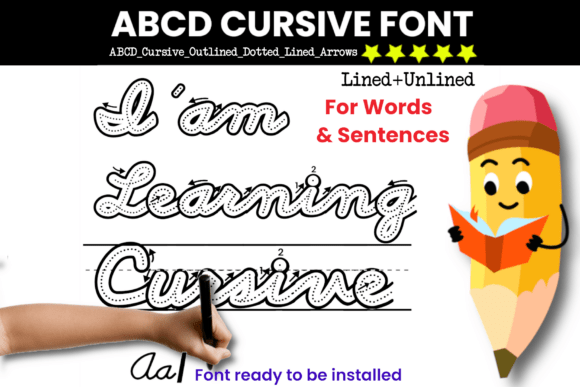
Cursive Learning: Abcd Cursive Outline Dotted Arrows Lined Font
In the realm of educational design, the bridge between playful engagement and structured learning is often built with typography. For graphic designers specializing in educational materials, the Abcd Cursive Outline Dotted Arrows Lined font is more than a typeface—it's a dynamic creative asset that transforms passive learning into an interactive experience. This unique, installable handwritten font, inspired by the renowned D'Nealian handwriting method, provides a professional solution for creating thousands of custom worksheets, blending visual appeal with pedagogical function.
Typography as a Teaching Tool: Visual Hierarchy and Clarity
Effective visual design in education hinges on clear communication. The Abcd Cursive Outline Dotted Arrows Lined font excels by embedding instructional guides directly into its letterforms. The dotted outlines provide a clear path for tracing, while the directional arrows teach proper stroke order and flow. This approach creates an intuitive visual hierarchy where the goal (the complete letter) and the method (the traced path) are seamlessly integrated. For designers, this means creating materials that are not only visually consistent but also inherently instructional, reducing cognitive load and enhancing user engagement.
When selecting such a font, consider its scalability and readability. A well-designed educational typeface maintains its clarity at various sizes, from small worksheet text to large poster displays. The consistency of the TRACE & COLOR ABCD Cursive Outlined Dotted Arrows Lined /+Half lined font style ensures that whether it's used on a digital screen or a printed page, the core teaching elements remain perfectly legible and functional.
Practical Applications Across Creative Projects
The utility of this specialized font extends far beyond traditional classroom worksheets. Its unique characteristics make it a valuable asset in a variety of design contexts where education, interaction, or a handcrafted aesthetic is desired.
- Brand Identity & Logo Design: For educational apps, tutoring services, or children's brands, this font can inform a logo or wordmark that communicates approachability and learning-focused values. It establishes a visual identity that is both professional and deeply connected to its mission.
- Digital Marketing & Social Media Graphics: Create engaging Instagram stories, Facebook posts, or Pinterest pins promoting educational content. The interactive look of the letters can increase user engagement, encouraging followers to try tracing letters themselves.
- Packaging & Merchandise Design: Design product packaging for children's books, stationery sets, or learning kits. The font's style immediately signals the product's purpose, creating a cohesive unboxing experience that aligns with the brand's educational promise.
- Editorial & Web Design: Use it as a display font in magazines, blogs, or websites focused on parenting, homeschooling, or childhood development. It adds a touch of personalized, instructional charm to headers and pull quotes, enhancing the overall user experience (UX).
Integrating Specialized Assets into Your Design Workflow
Incorporating a font like Abcd Cursive Outline Dotted Arrows Lined into your projects requires thoughtful execution to maintain a polished and professional presentation. The key is to balance its distinctive style with complementary design elements.
- Pair with Simplicity: Use this font for headlines or key instructional text. Pair it with a clean, neutral sans-serif font for body copy to ensure readability and prevent visual clutter. This creates a clear typographic hierarchy.
- Color with Purpose: The "outline" nature of the font makes it perfect for creative coloring activities. In digital designs, use it with a thoughtful color palette that aligns with your brand identity. Consider using a single, bold color for the arrows to draw attention to the tracing instruction.
- Test for Consistency: Before finalizing any design, test the font across all intended applications—print, web, and mobile. Ensure the dotted lines and arrows render correctly at different resolutions and sizes to guarantee a consistent brand experience.
Ultimately, the choice of creative assets defines the quality and effectiveness of a design. By leveraging specialized tools like the Abcd Cursive Outline Dotted Arrows Lined